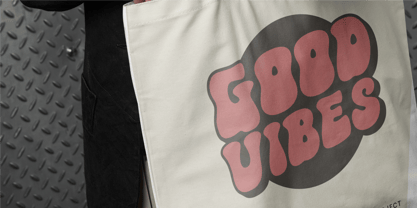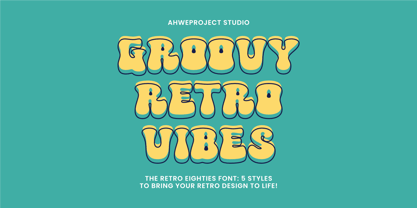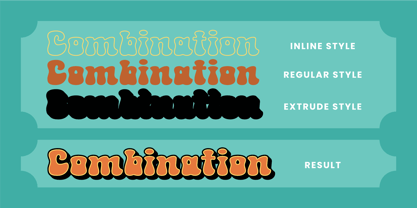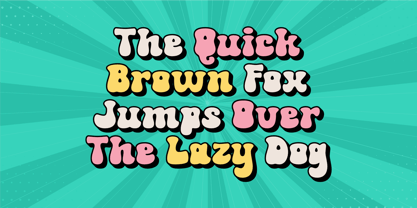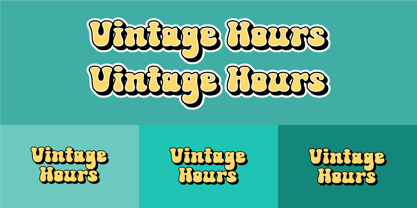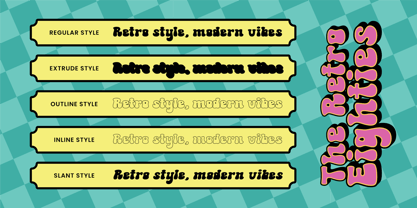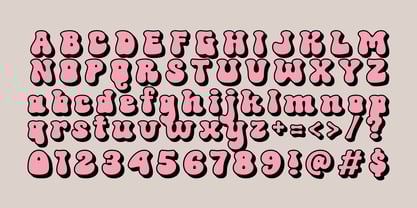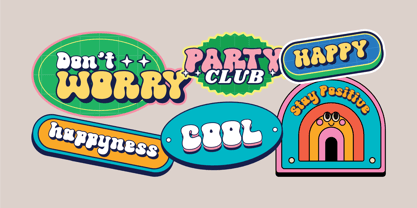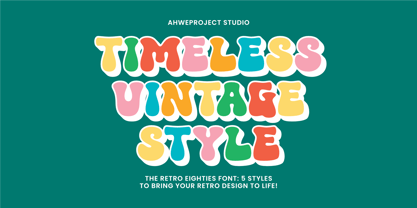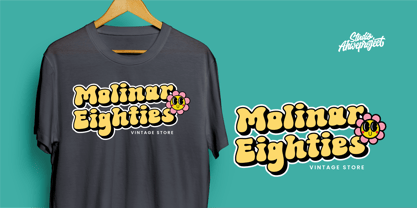
The Retro Eighties
by ahweproject
The The Retro Eighties Font Family was designed by Dida Ahluddin and published by ahweproject. The Retro Eighties contains 5 styles and family package options.
“The Retro Eighties” is a vibrant and playful typeface that captures the nostalgic essence of 1980s aesthetics. With its bold, rounded letterforms and whimsical charm, this font is perfect for projects that aim to evoke a happy, retro vibe.
The font includes versatile styles such as Regular, Extrude, Outline, Inline, and Slant, offering endless creative possibilities. Its design is ideal for posters, packaging, headlines, and branding that want to channel the colorful, energetic spirit of the ’80s.